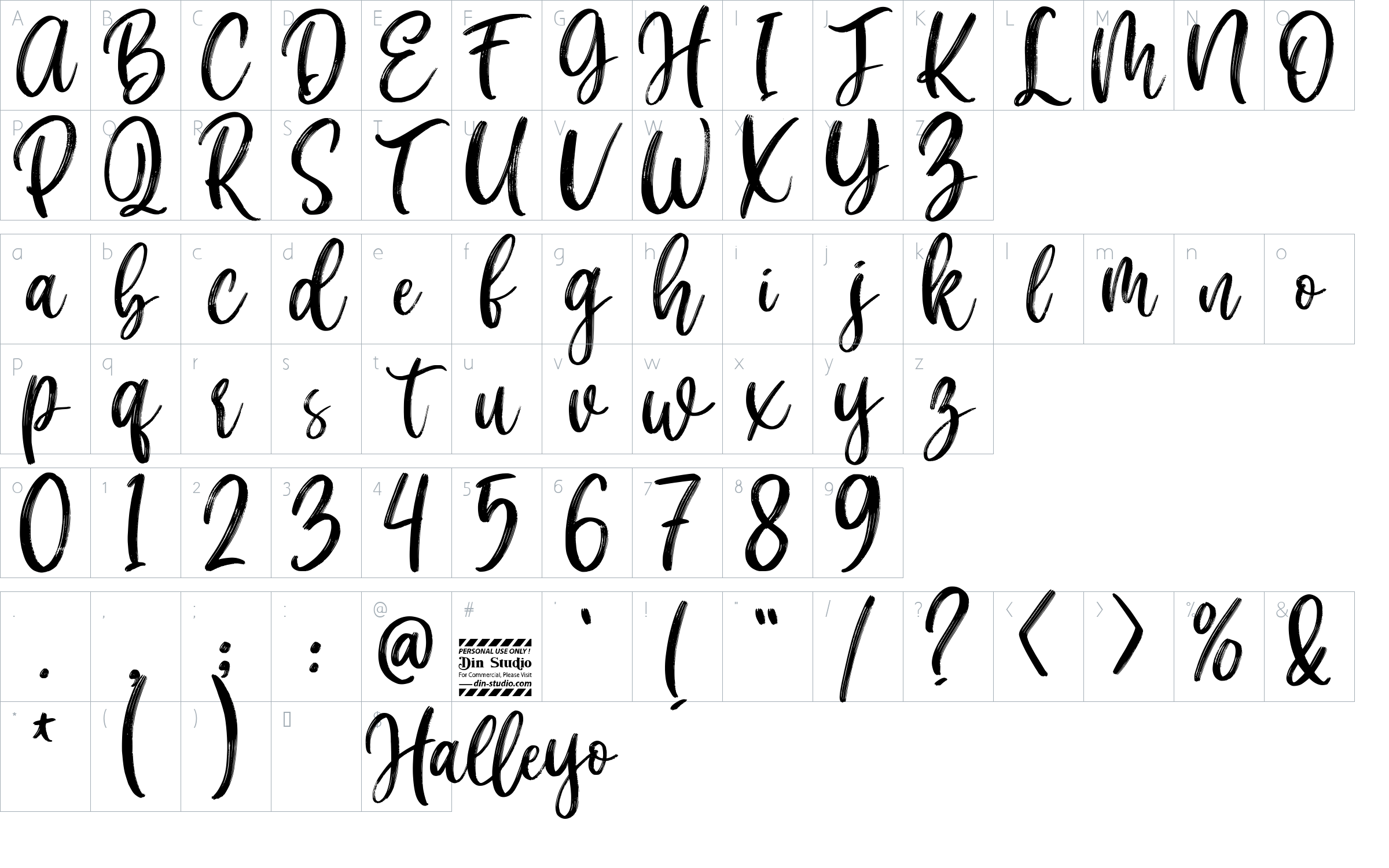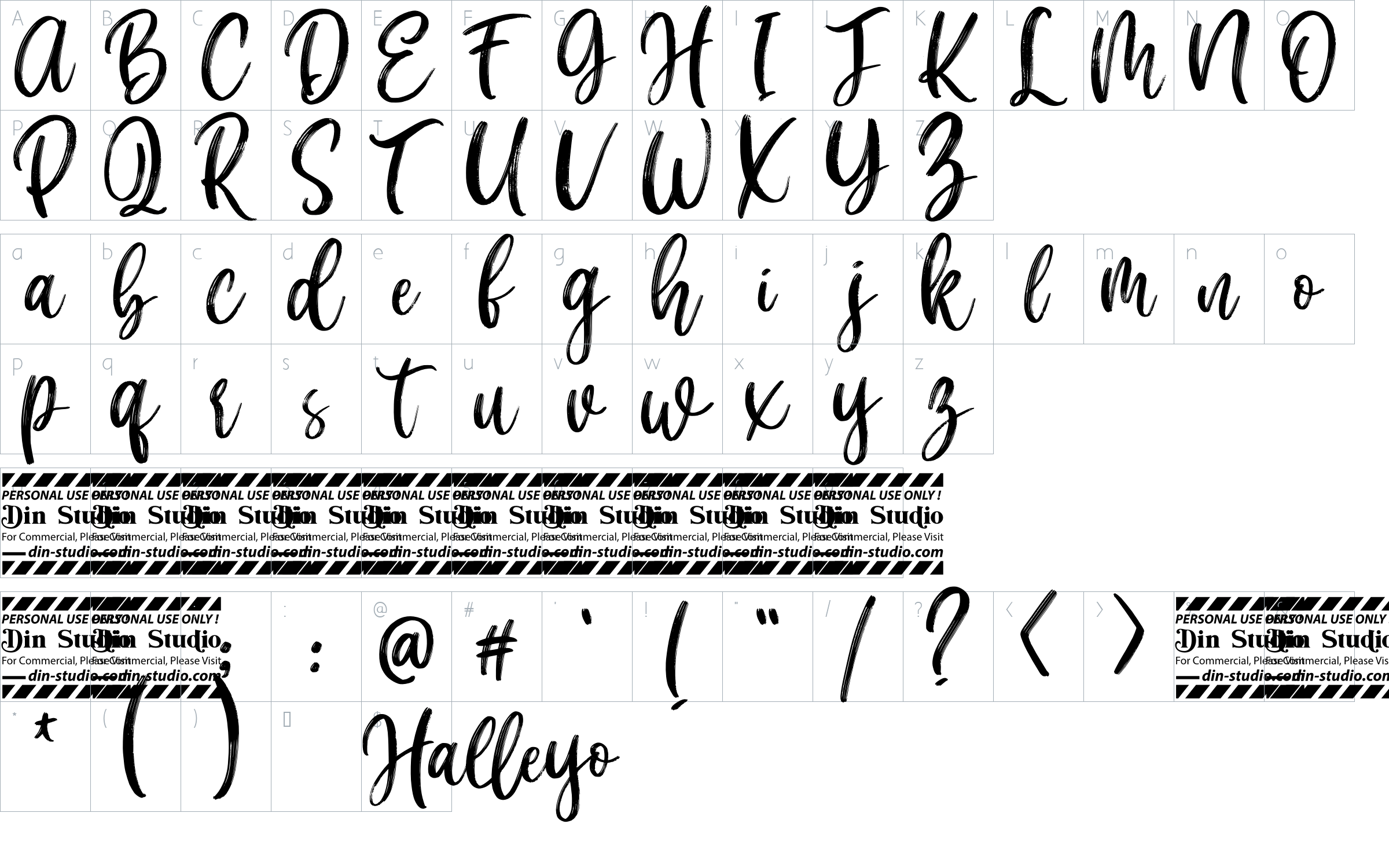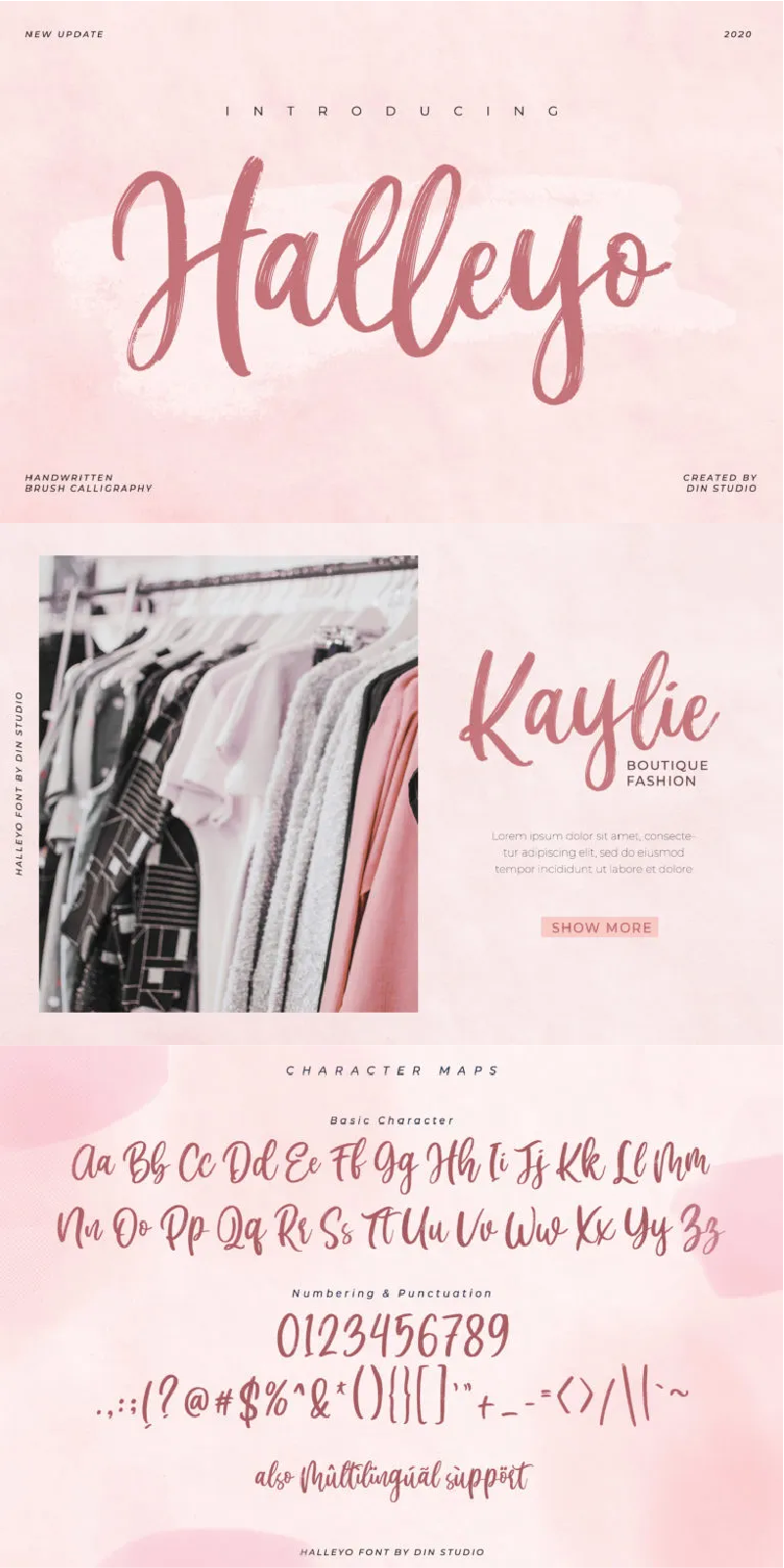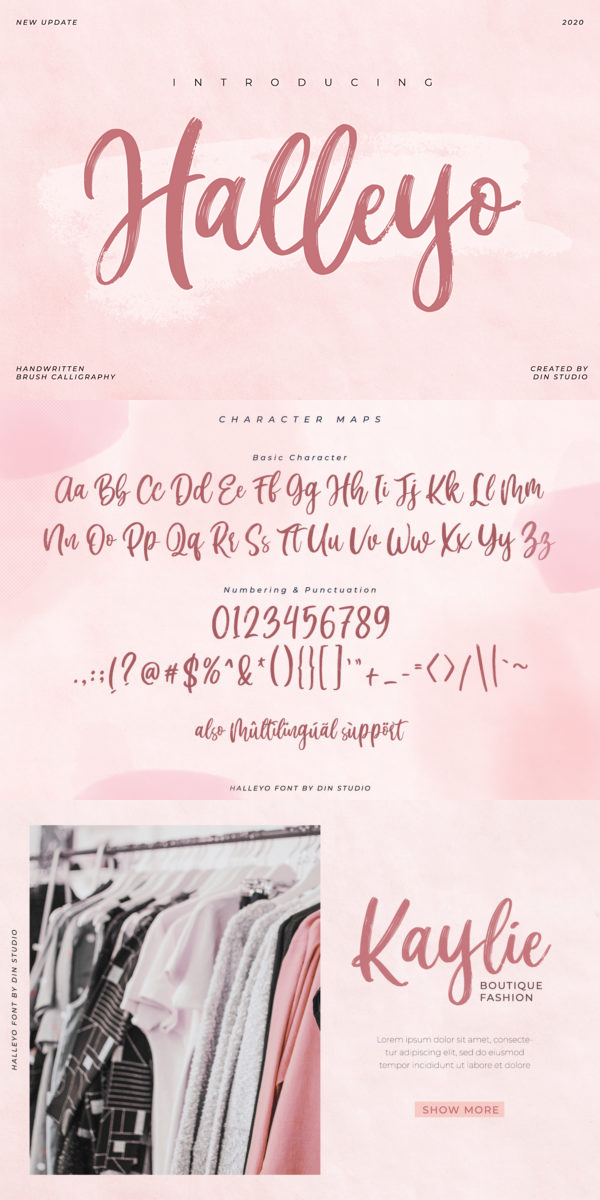
Halleyo Font
About Halleyo
Hello, Guys! Let’s welcome the Halleyo, a brush handwritten font with a classy and natural handwritten style that brings a beautiful classy typeface. Halleyo is best used for brandings, logotypes, and quotes. See the previews above to get some inspiration on how you can use them. Enjoy the font!